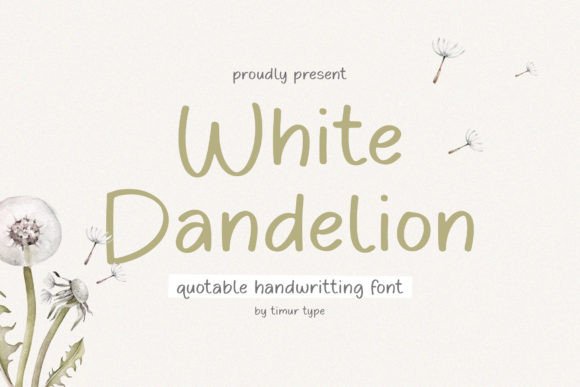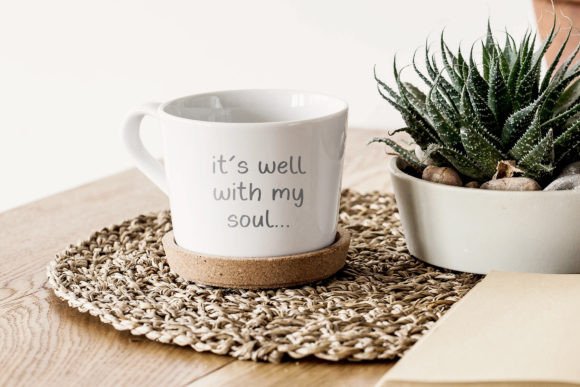
White Dandelion is a sweet and friendly handwritten font. Its natural and unique style makes it incredibly fitting to a large pool of designs. The only limit is your imagination!
White Dandelion Font